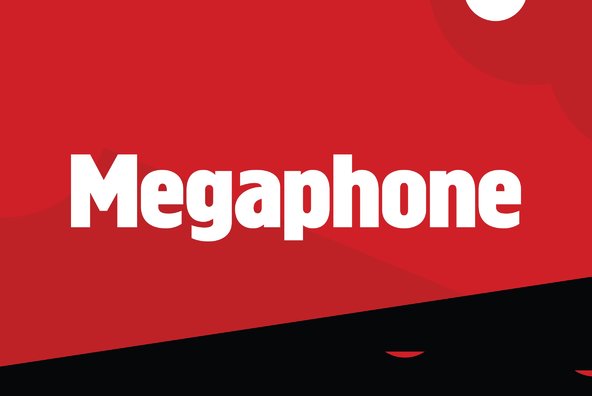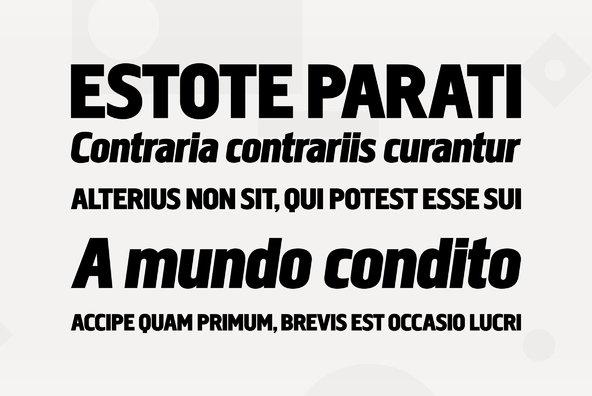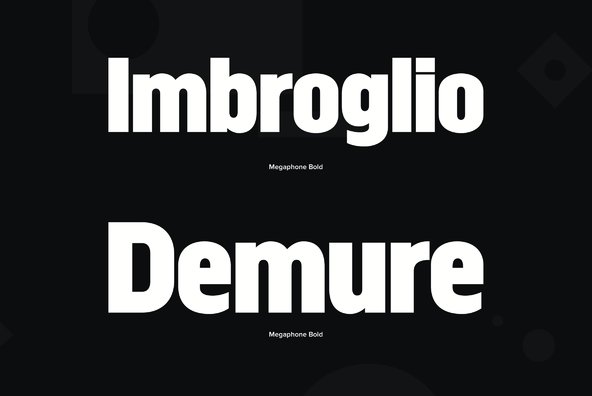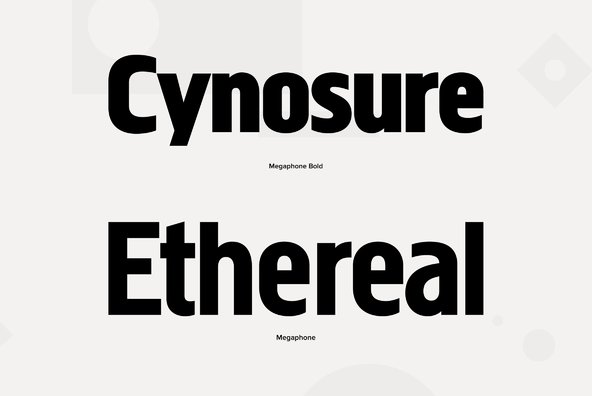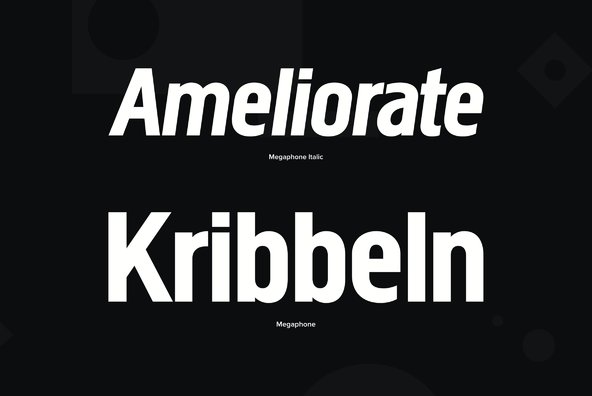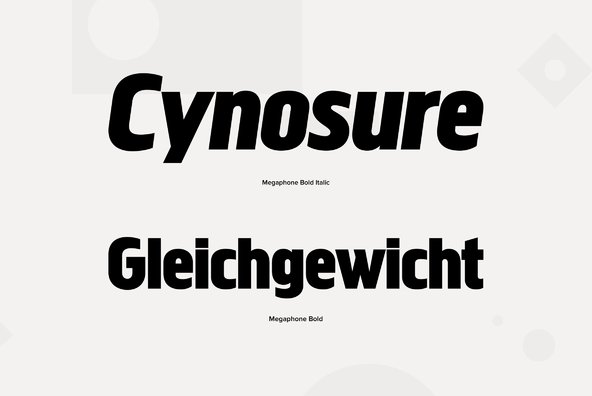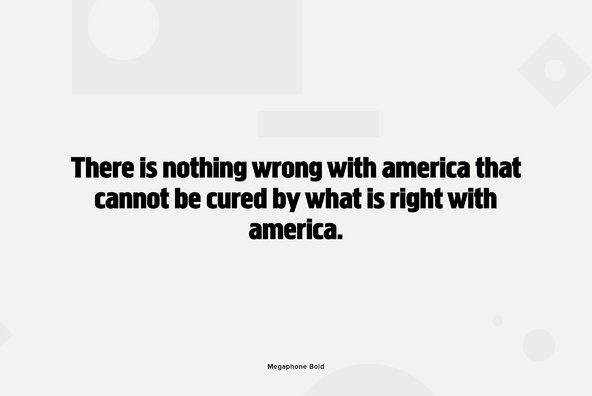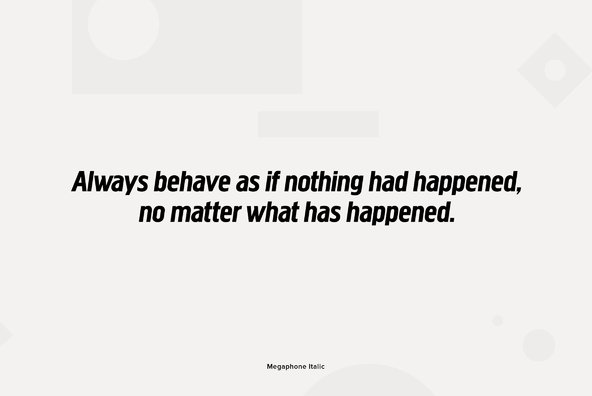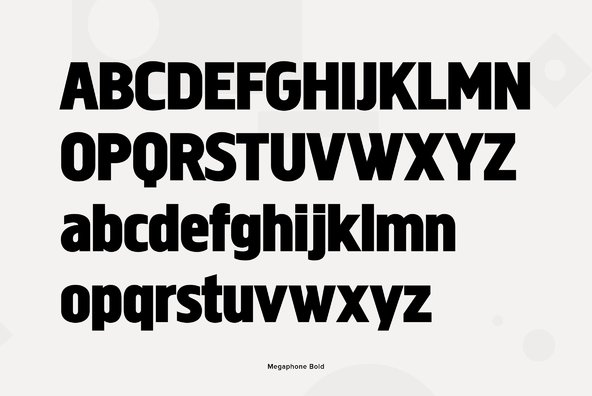
Designed by Steve Jackaman and Ashley Muir. It was our initial intention to develop a suitable lowercase for Les Usherwood's 'Elston' typeface.
Designed by Steve Jackaman and Ashley Muir. It was our initial intention to develop a suitable lowercase for Les Usherwood's 'Elston' typeface, based on a few characters from an old German typeface called Hermes Grotesque (Woellmer, Berlin). The new design became Creighton. Then, for good measure we decided to experiment with a 'crisper version' of this design; the result is 'Megaphone'.